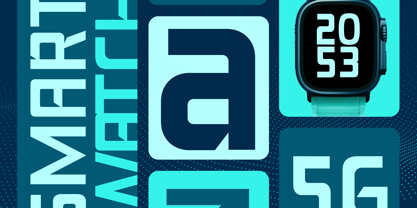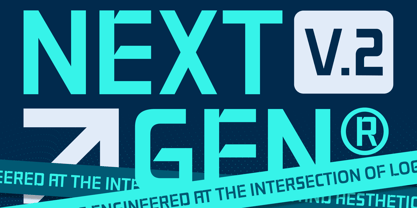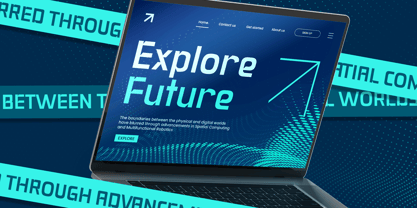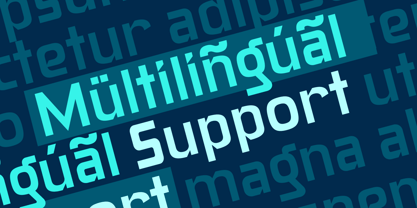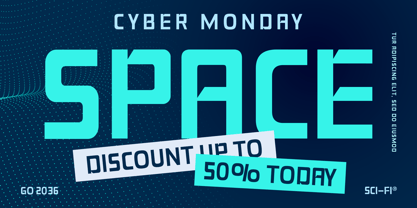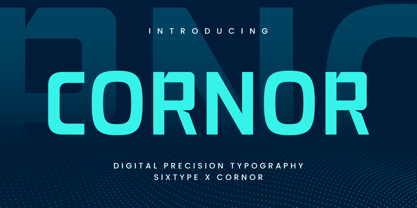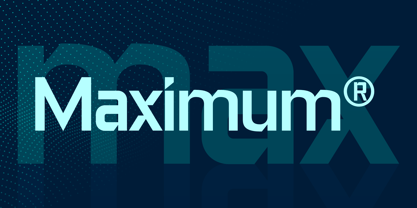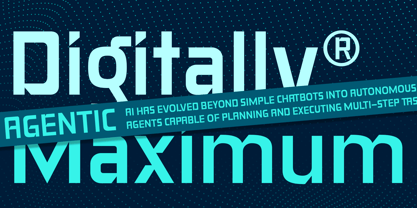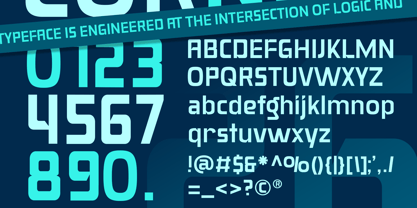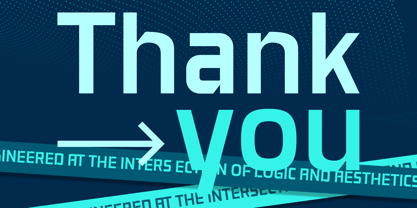
Cornor
Cornor is a modern geometric display typeface crafted to provide clarity, balance, and a strong visual character. Featuring clean lines and structured letterforms, this font delivers a contemporary aesthetic that seamlessly integrates into modern branding and design projects. Ideal for designers seeking a stylish font for logo design, branding identity, posters, packaging, advertising, and digital graphics, Cornor offers a professional typography solution suitable for both print and screen. Its geometric construction imparts a confident and modern personality while ensuring excellent readability in display applications, making it a versatile choice for various creative endeavors.
About Sixtype Foundry
Sixtype Foundry, an independent studio based in Indonesia, excels in exploring diverse design styles while actively fostering creativity and resource exploration. Driven by passion, we continually push typographic boundaries, positioning ourselves as an innovative hub within the evolving design landscape. Our mission is both simple and bold, to redefine the art of typeface design and inspire designers to create extraordinary visual narratives. With a focus on unique design traits and a commitment to quality, Sixtype Foundry serves a wide range of users across various industries, making us a trusted name in the world of typography.